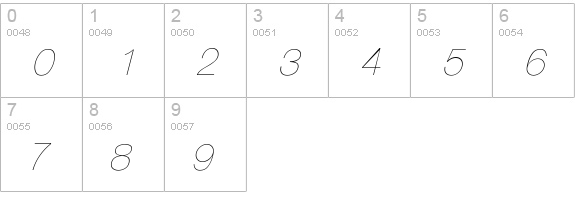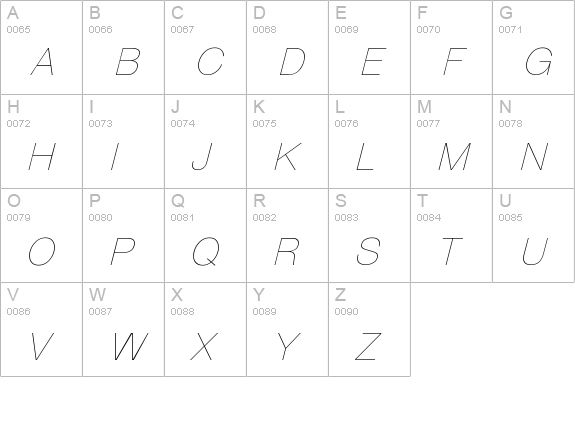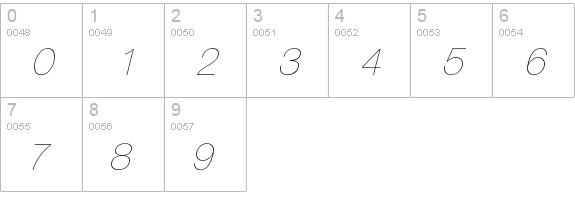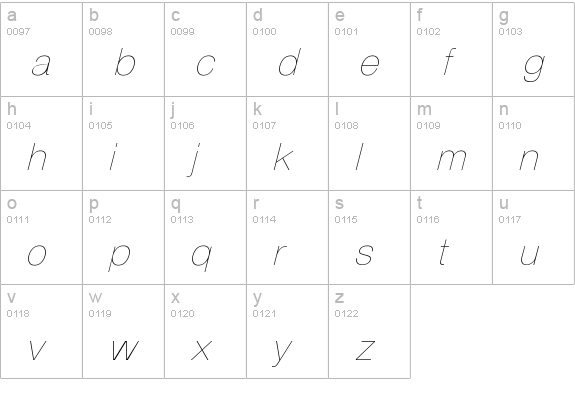
PartridgeObl-Th Font Details
PartridgeObl-Th is a stunning and elegant font that will captivate your audience with its unique design. This font combines the perfect balance of sophistication and creativity, making it ideal for a wide range of projects. Its stylish and sleek appearance will add a touch of modernity to any design, whether it be for branding, advertising, or web design. Designed with precision and attention to detail, PartridgeObl-Th features sleek and slender letterforms that exude a sense of elegance and refinement. Each letter is meticulously crafted, ensuring flawless readability and clarity at any size. Its graceful curves and sharp edges create a harmonious visual rhythm that is both visually pleasing and eye-catching. What sets PartridgeObl-Th apart is not just its exceptional design, but also the fact that it is available for free. Yes, you read that right! This remarkable font is freely available to download at FontsMarket.com. This means that you can enhance your projects with a high-quality font without having to spend a dime. Whether you are a professional designer, a student, or a hobbyist, PartridgeObl-Th is a font that will elevate your work to new heights. With its versatility and timeless appeal, it can effortlessly adapt to various design styles and contexts. From elegant logos to sophisticated headlines, this font will bring a touch of class to any project. So why wait? Download PartridgeObl-Th now from FontsMarket.com and unlock the potential of this remarkable font. Let your creativity soar and create stunning designs that will leave a lasting impression. With PartridgeObl-Th, your projects will stand out from the crowd and make a statement of their own.